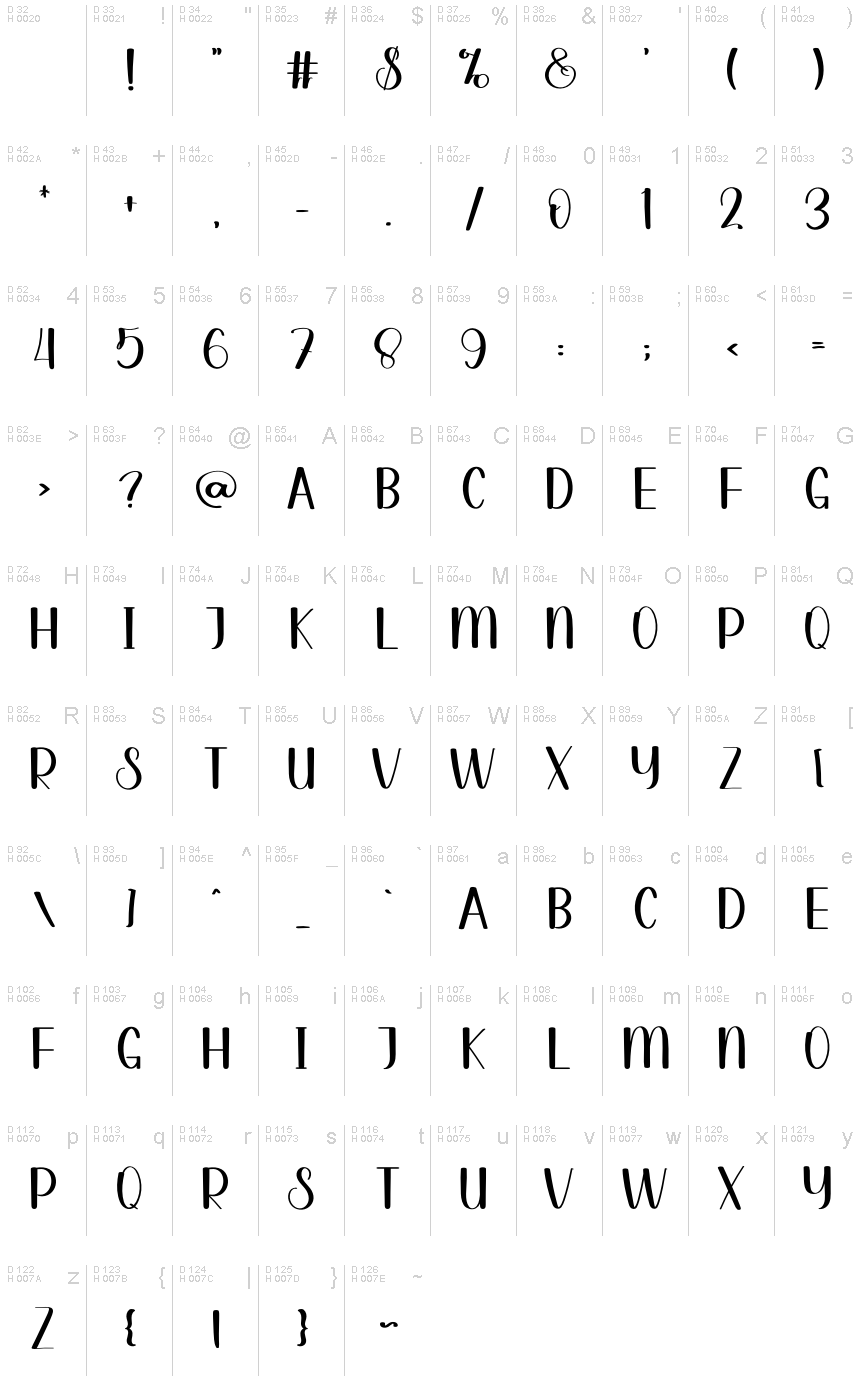
MARKET PROMO
Market Promo by Inermedia Studio is a handwritten gem that strikes a perfect balance between personal touch and professional flair. Its semi-light weight lends an airy, approachable feel, while the semi-condensed width ensures efficient use of space without compromising readability. The handwritten style of Market Promo exudes charm and authenticity, making it an ideal choice for branding projects, advertising materials, and social media graphics that aim to resonate with the audience on a more intimate level.
Its aesthetic appeal lies in its ability to convey casual elegance—perfect for creative endeavors seeking to blend modern sophistication with the warmth of human touch. Whether for eye-catching headlines or engaging body text, Market Promo stands out as a versatile font that can adapt to a multitude of design contexts.